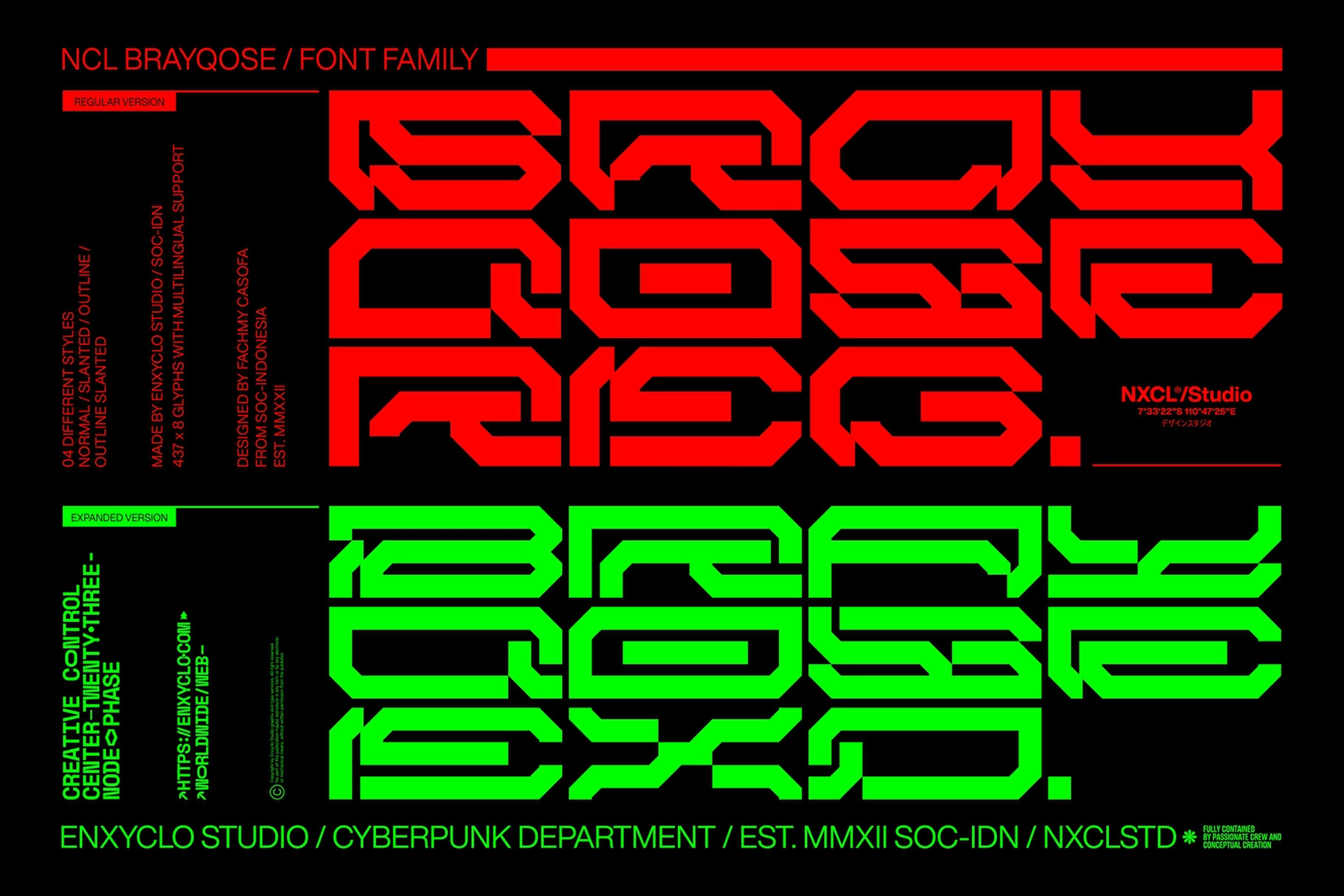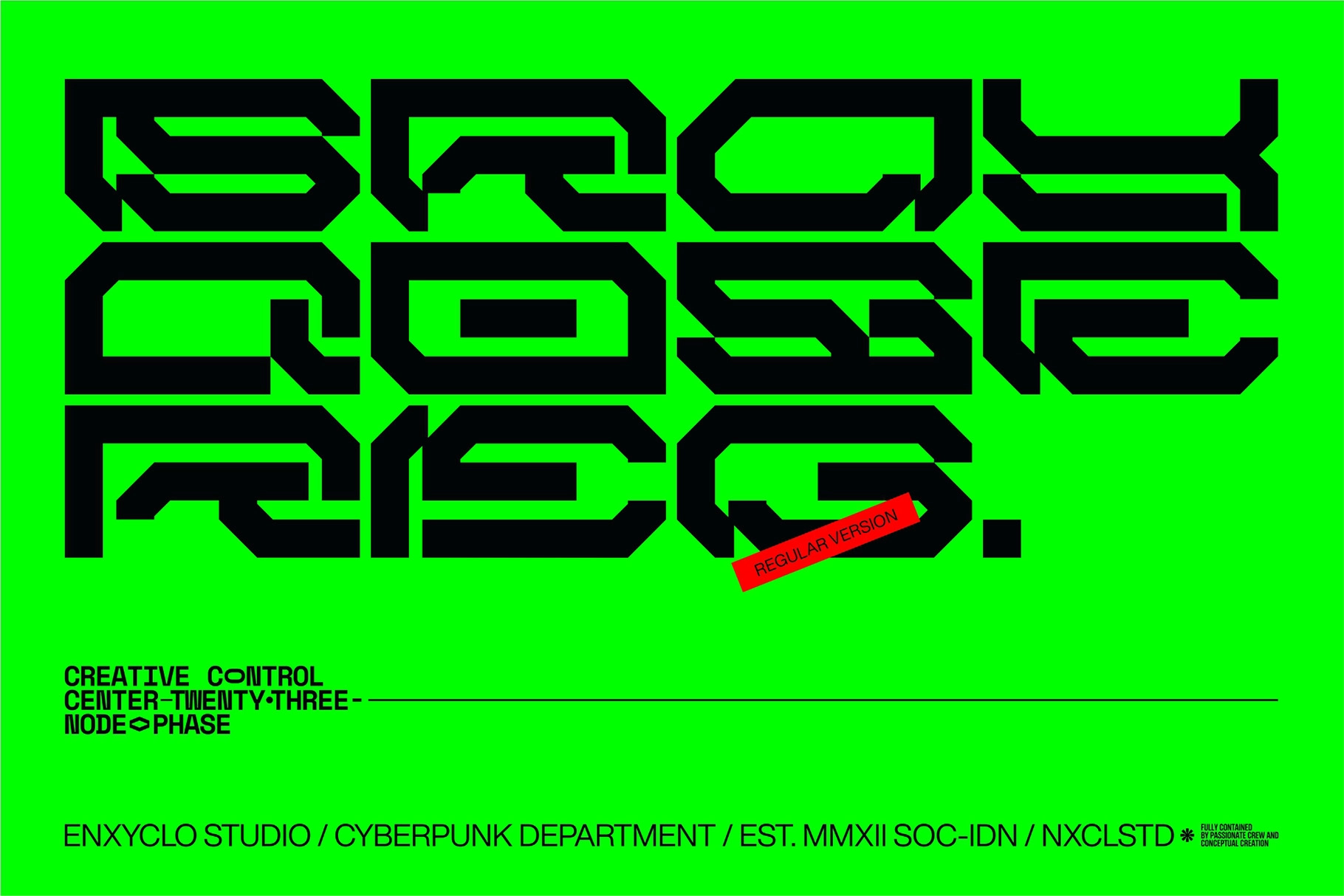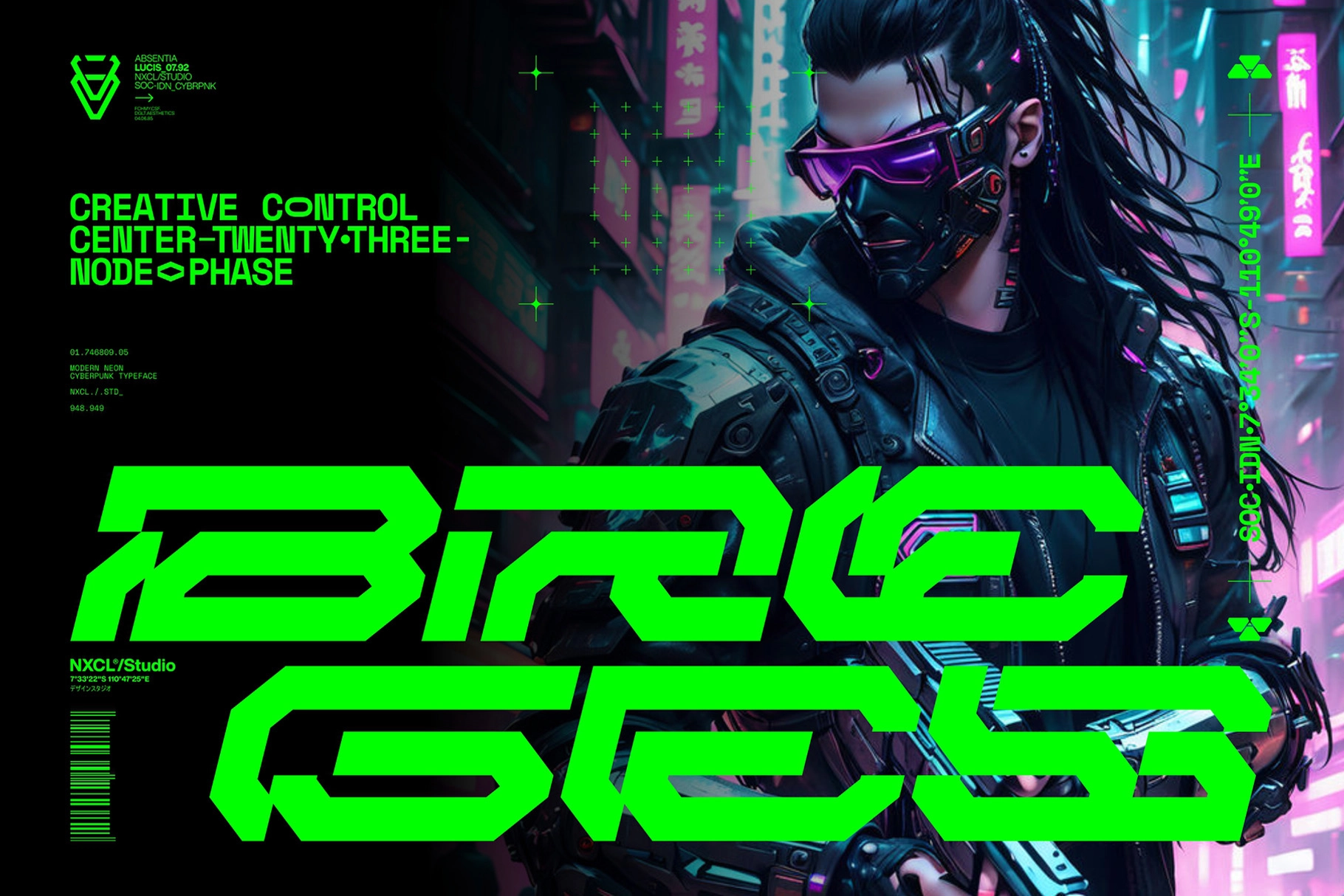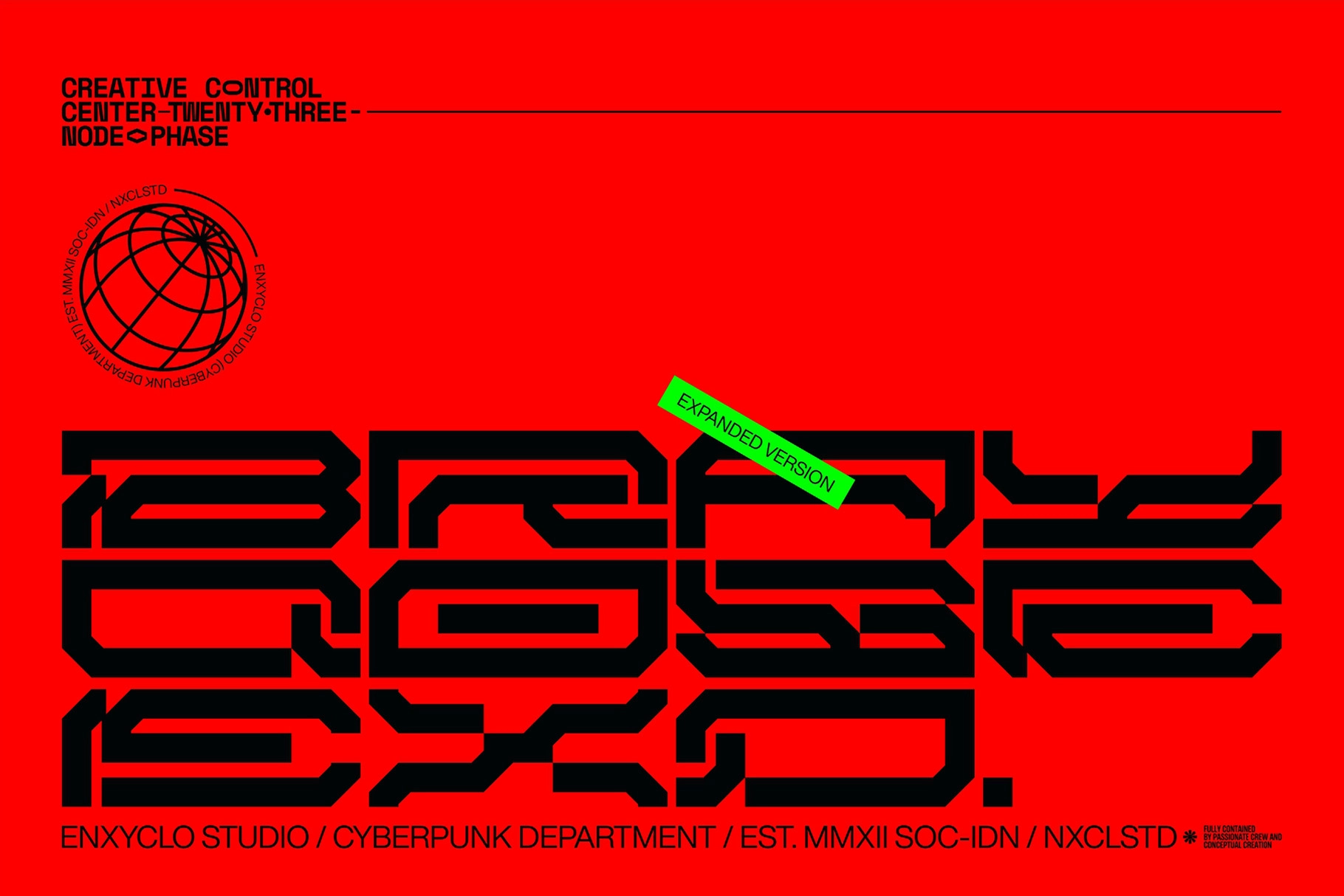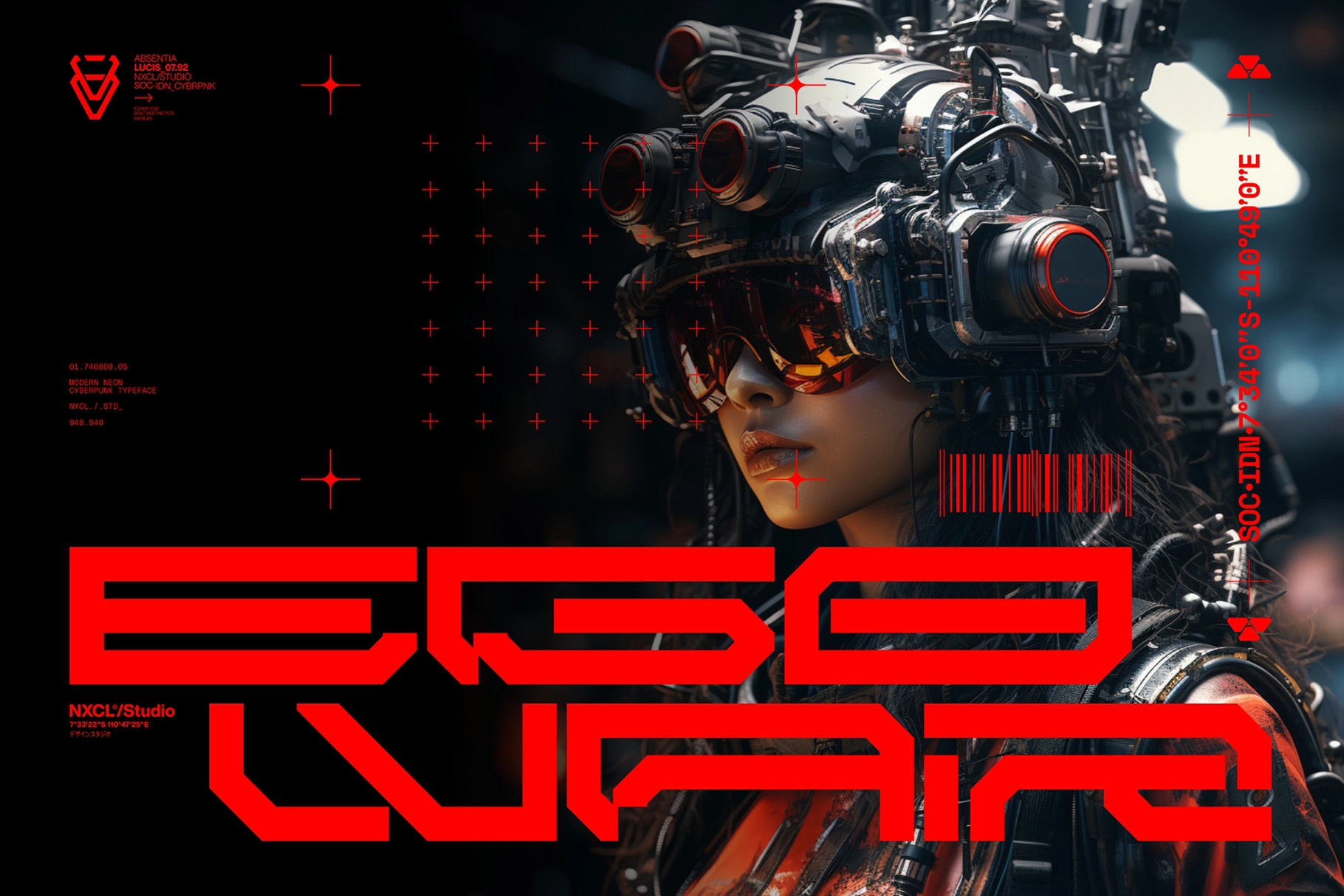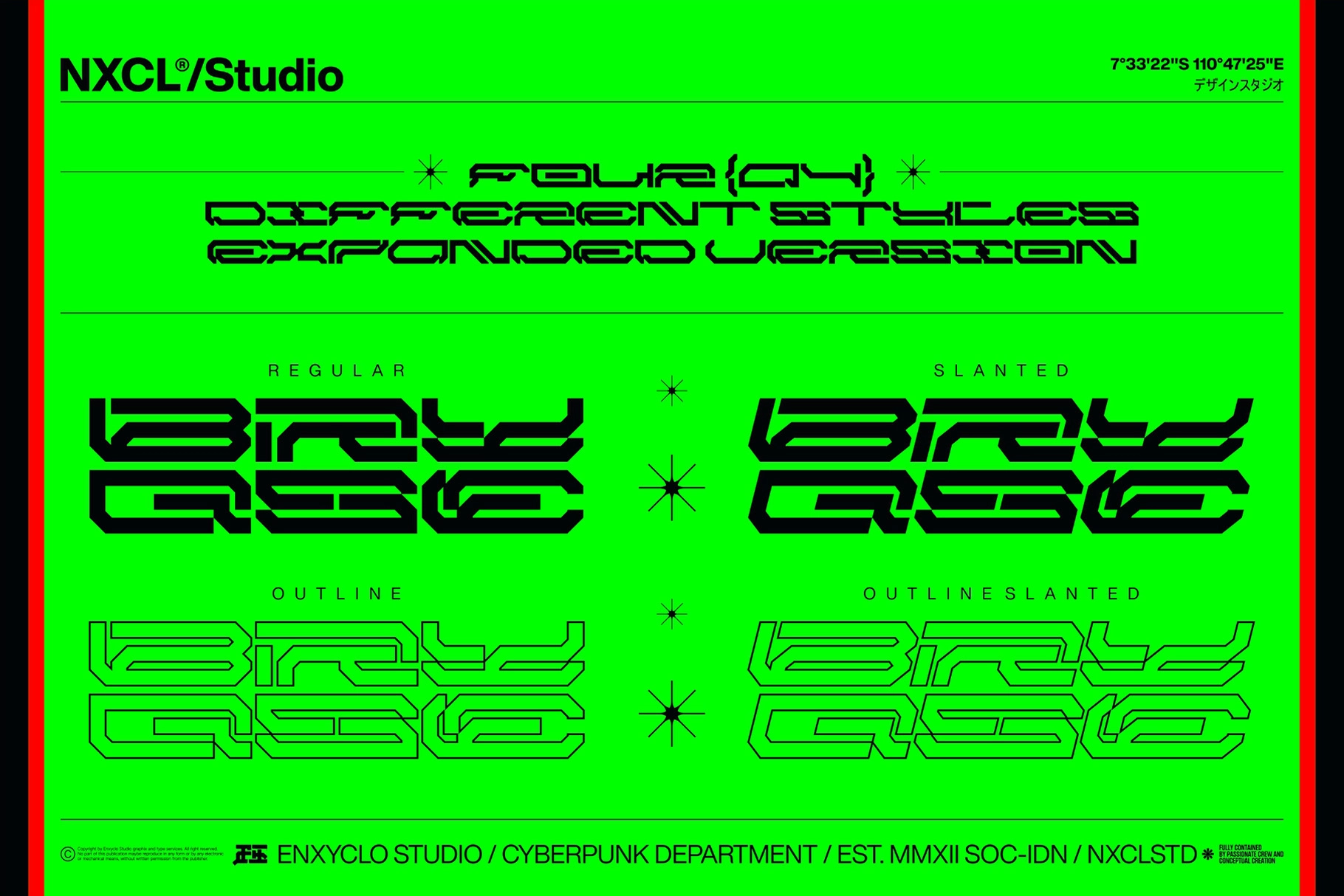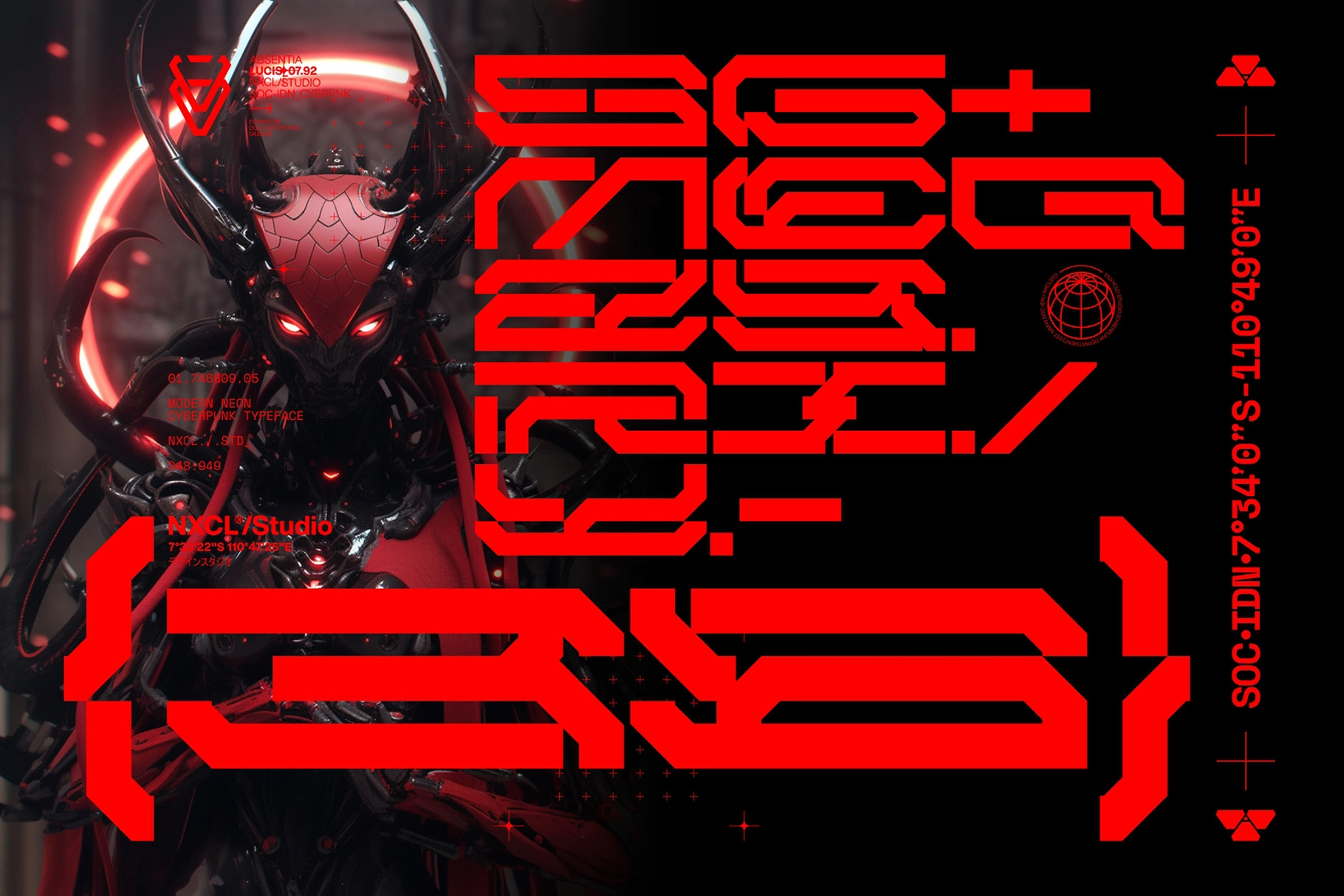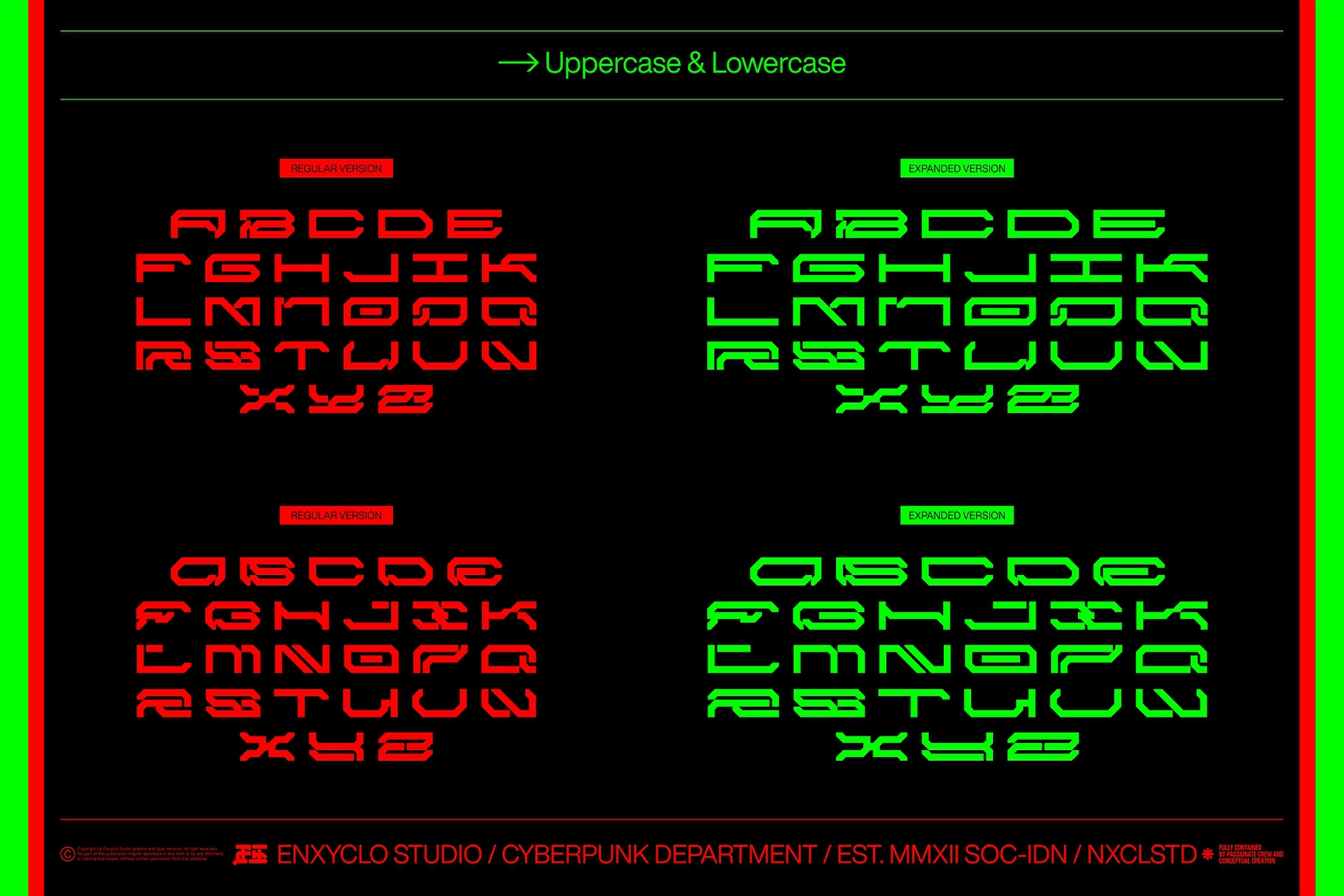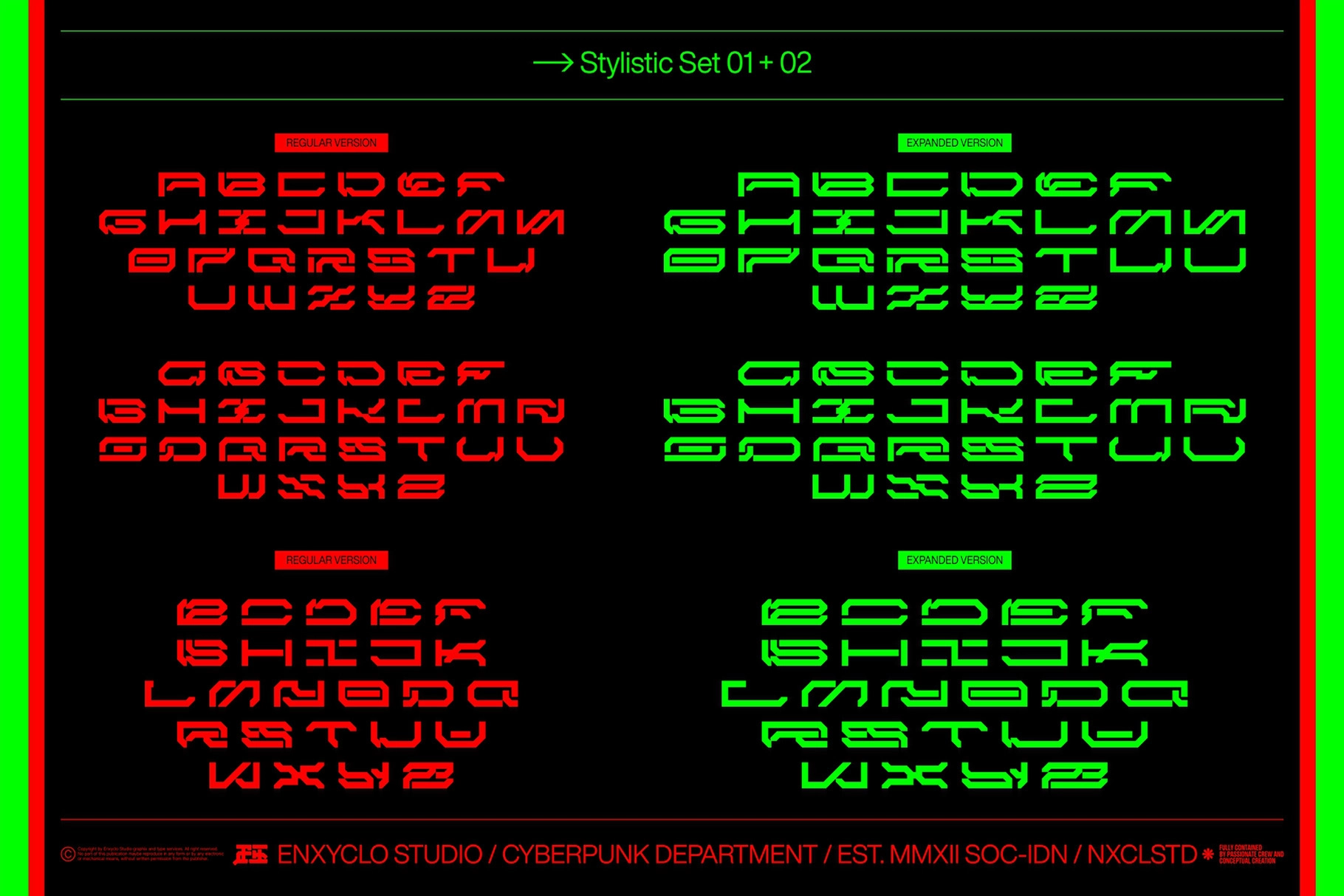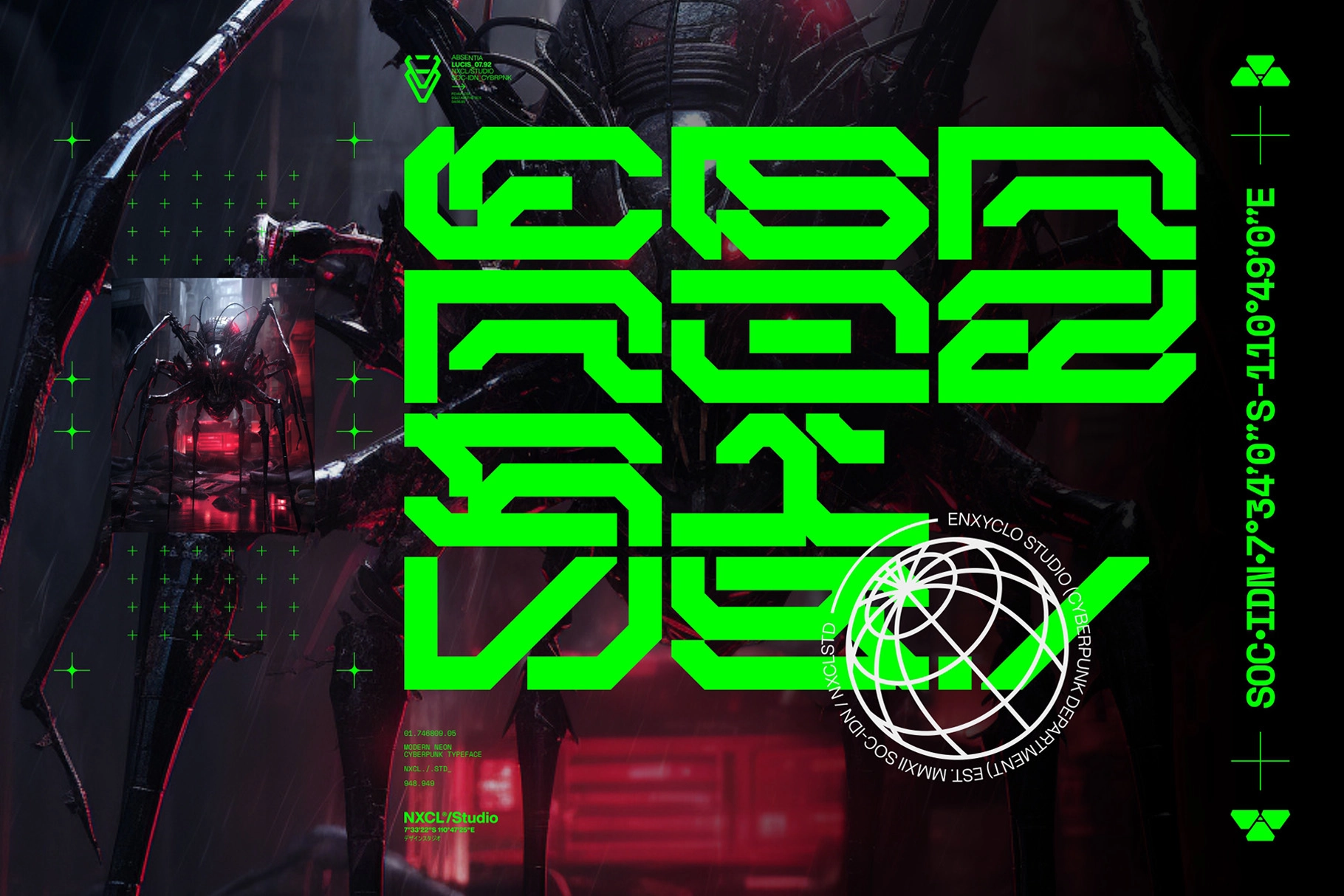
NCL Brayqose - Cyberpunk Futuristic Display Font
NCL Brayqose - Cyberpunk Futuristic Display Font is a bold techno-inspired typeface designed with a modern cyberpunk aesthetic and futuristic expanded structure. Its sharp geometric forms and mechanical styling create a high-tech visual identity that instantly gives designs a powerful sci-fi atmosphere.
Perfect for gaming graphics, technology branding, posters, futuristic logos, UI interfaces, esports visuals, and sci-fi themed projects, this font family delivers versatility with multiple stylistic variations. With its expanded forms and cyberpunk character, NCL Brayqose adds a strong futuristic presence to any design composition.
• 8 styles: Regular, Slanted, Outline, Outline Slanted, Expanded Slanted, Expanded Outline, Expanded Outline Slanted
• Uppercase & lowercase characters
• Stylistic Set 1–2